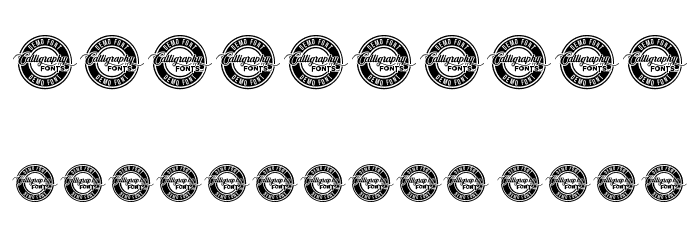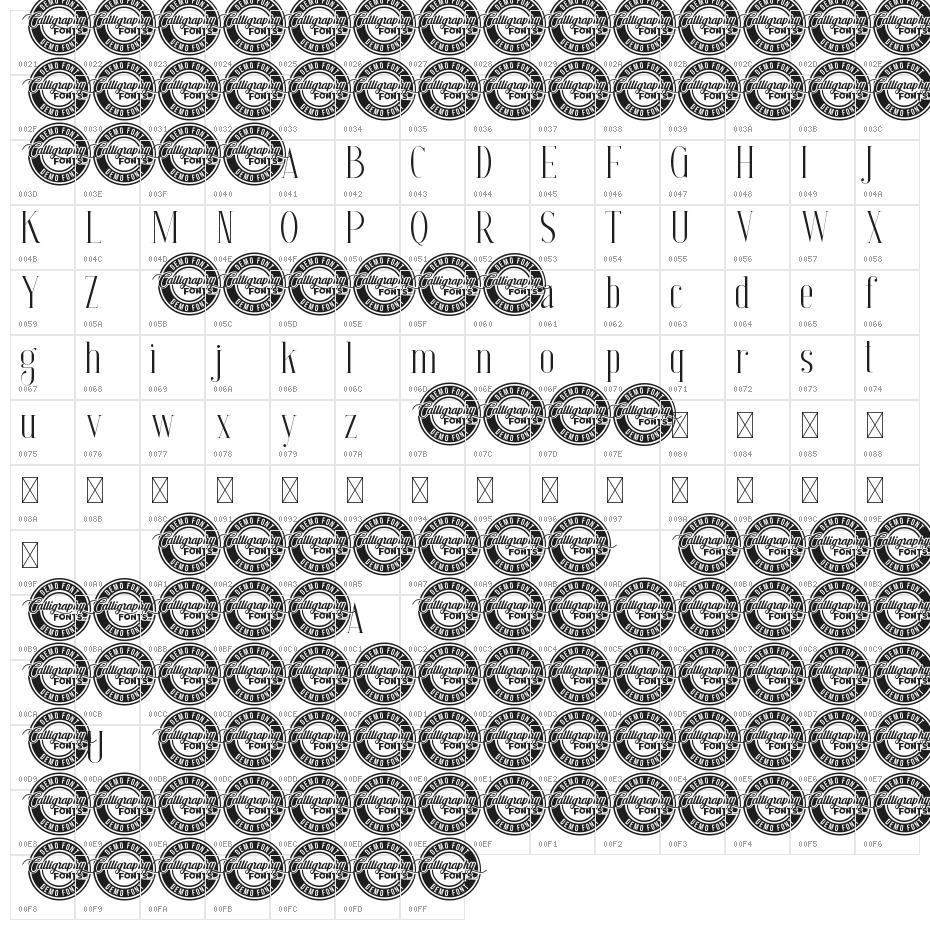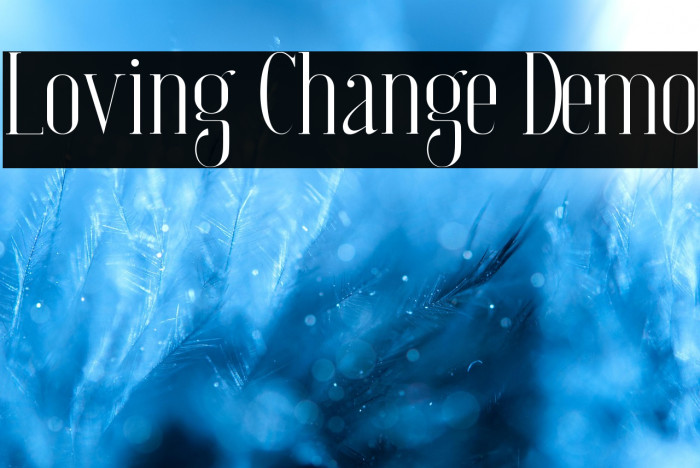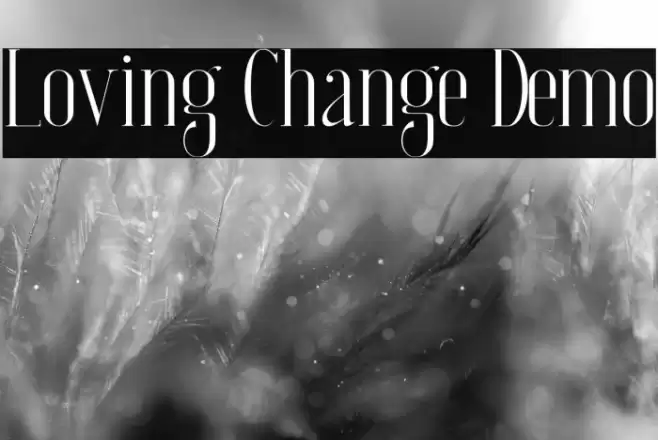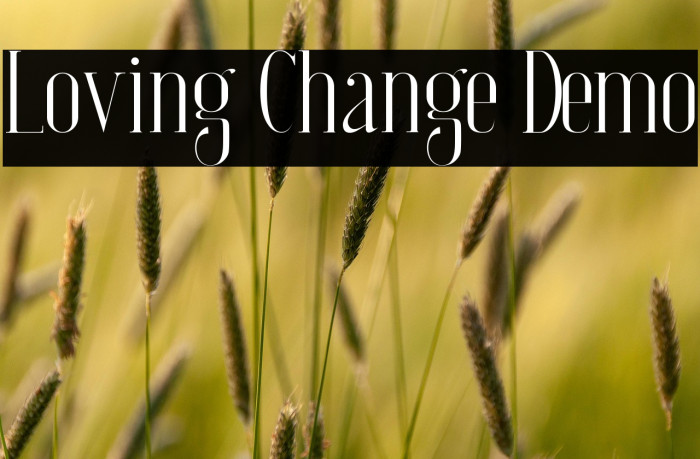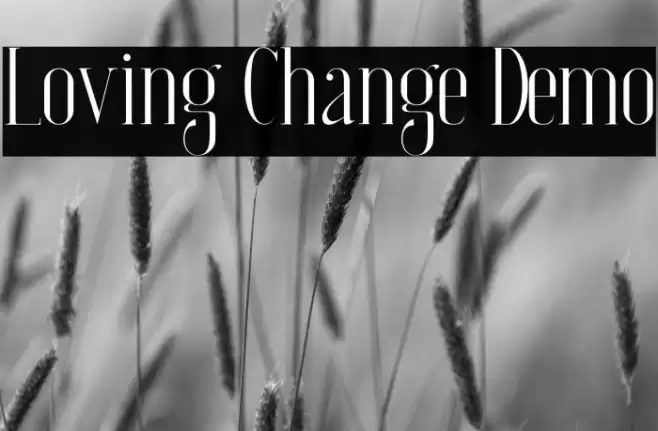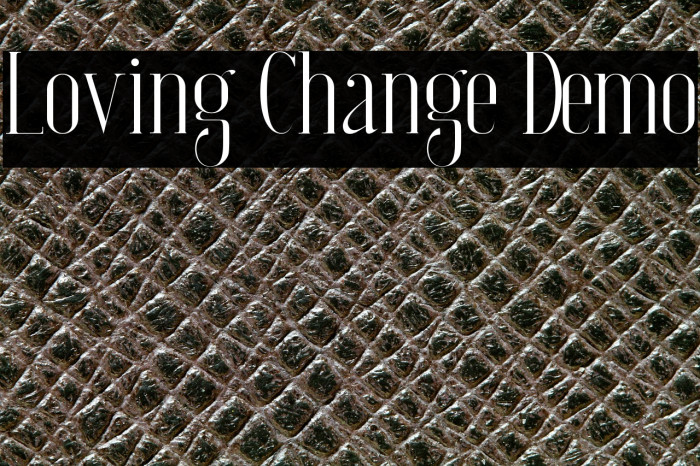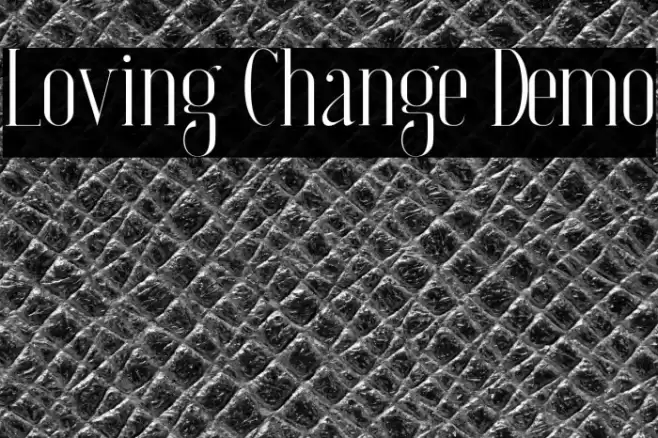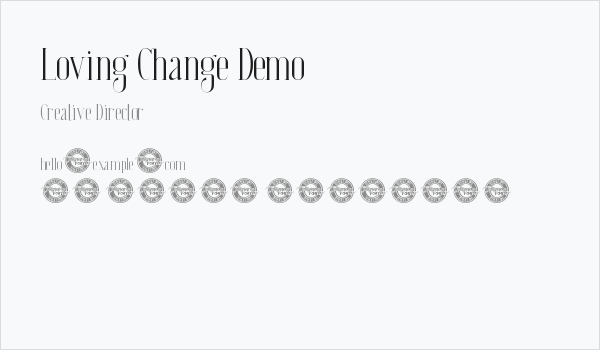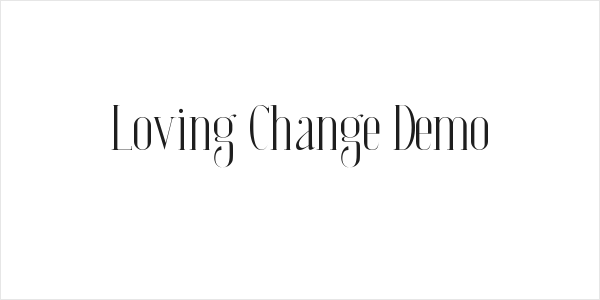
Loving Change Demo Font
Loving Change Demo Description
This font features an elegant and sophisticated design with a high contrast between thick and thin strokes, giving it a refined and stylish appearance. The uppercase letters are tall and slender, with a graceful curvature that adds a touch of class. The lowercase letters maintain a similar aesthetic, with unique flourishes that enhance the overall elegance. The numerals are consistent with the letterforms, maintaining the same high contrast and sleek design. Special characters are thoughtfully crafted to match the font's overall style, making it versatile for various uses. Its decorative nature makes it ideal for projects that require a touch of sophistication and flair.
| Overall Style | Elegant, Sophisticated, Decorative |
| Proposed Projects | Ideal for wedding invitations, luxury branding, high-end product packaging, and editorial design. |